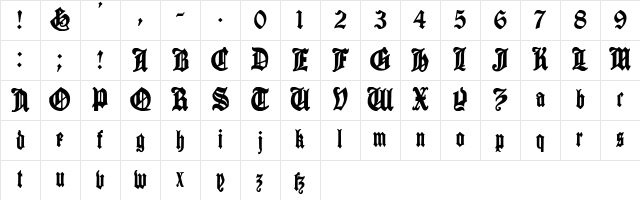
Cantebriggia Regular
Designer: PJL
Design Context for Cantebriggia
Cantebriggia is a composed and adaptable typeface that performs quietly and consistently across a wide range of design contexts.